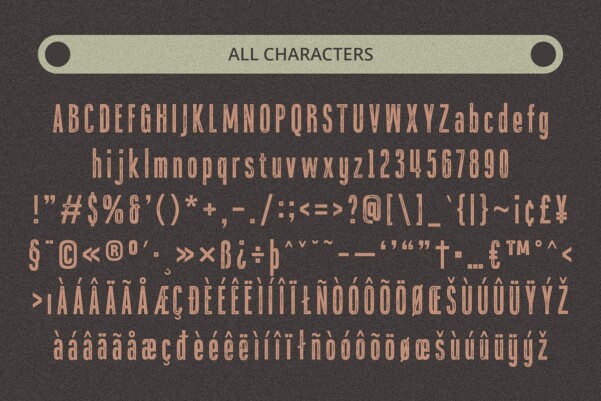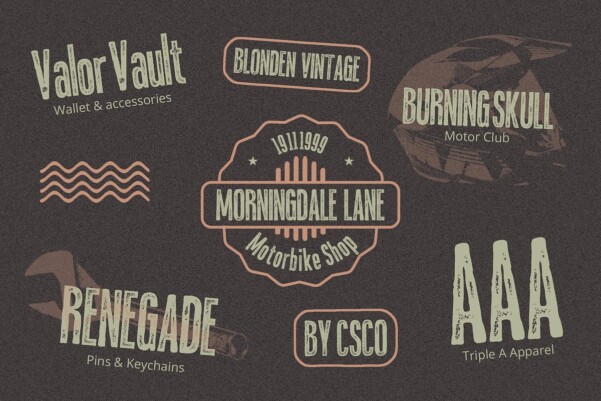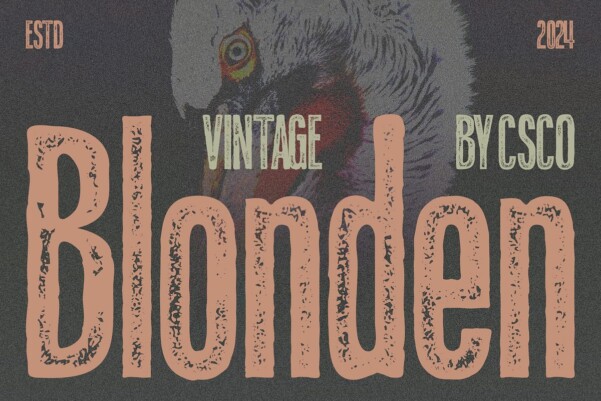
Blonden Vintage Font
Blonden Vintage Font: Retro-Inspired Display Typeface. Bold and Condensed Blonden Vintage features a striking sans serif design with a condensed and bold appearance. Its compact letterforms command attention and ensure maximum impact in any display setting.
Vintage Appeal with Rough Stamp Drawn Effects Drawing inspiration from vintage aesthetics, This font incorporates rough stamp drawn effects. These artistic imperfections add character and authenticity, evoking a nostalgic vibe reminiscent of bygone eras.
Perfect for Eye-Catching Displays Tailored for eye-catching displays, This font excels in grabbing attention and conveying messages with boldness and clarity. Whether on posters, banners, or packaging, its distinctive style ensures standout visuals.
Versatile Usage Across Design Projects Beyond its vintage charm, This font offers versatility across various design projects. From branding and advertising to editorial layouts and digital interfaces, its bold and condensed form makes a statement in any context.
Bold Retro Statement This font emerges as a bold retro statement in display typography. With its condensed sans serif design and vintage-inspired rough stamp effects, it brings a unique blend of nostalgia and modernity to any design project. Step back in time with Blonden Vintage and make a bold impression with your visuals.